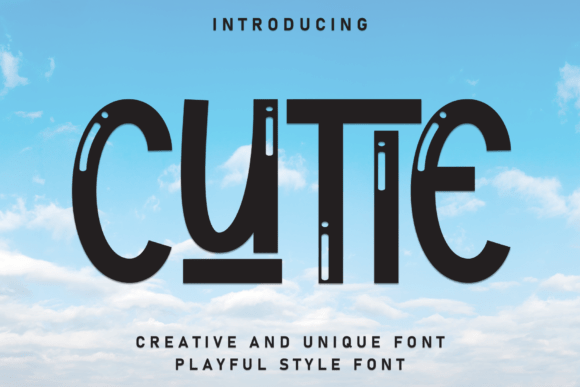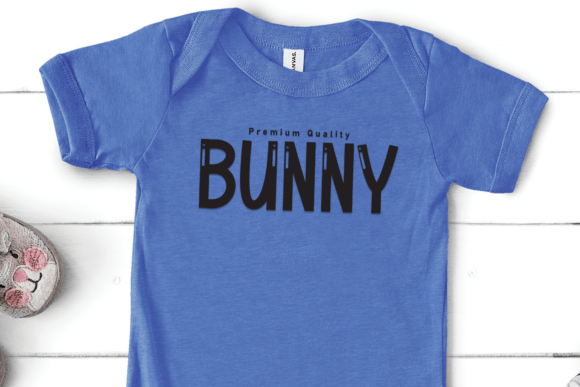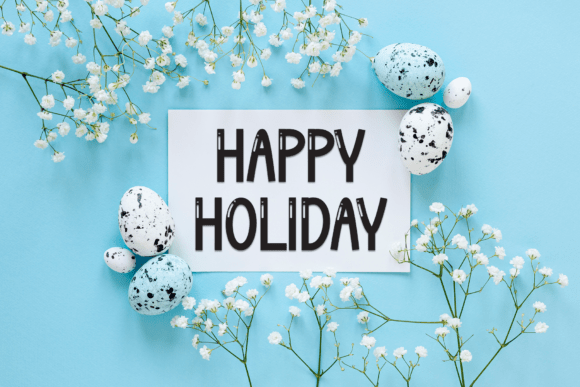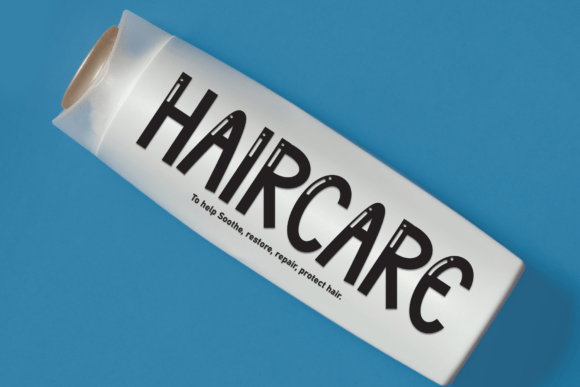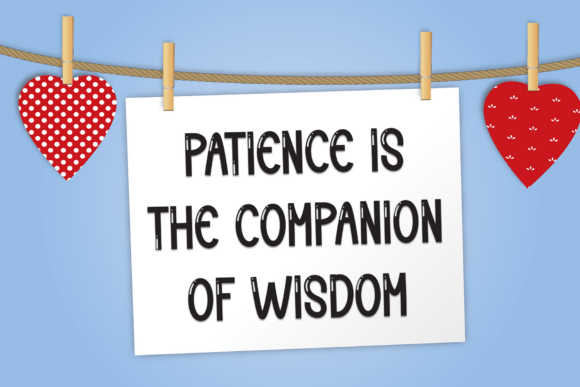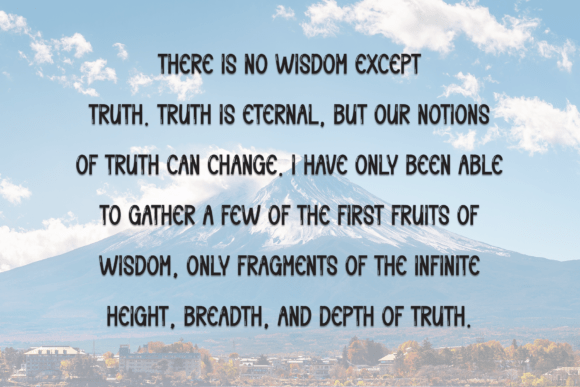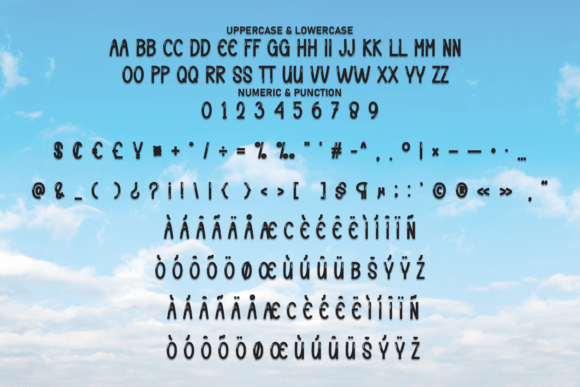
The Perfect Blend of Beauty and Function: Introducing Cutie Font
Have you ever been stuck in a design rut, searching for the perfect font to elevate your project and make it truly special? I know I have. The moment of inspiration strikes when you stumble upon a font that speaks to your creative soul, and for me, that moment arrived with the enchanting Cutie Font.
Designed to bring a touch of warmth and playfulness to your designs, Cutie Font is the perfect choice for custom projects like wedding invitations, greeting cards, and more. Its unique aesthetic and elegant charm make it a valuable asset for designers looking to add a personal touch to their work. Whether you’re a seasoned pro or a budding creative, Cutie Font is sure to inspire and delight, helping you to craft designs that truly leave a lasting impression.
Cutie Font Key Features
- Font Style: Cutie Font is a sans-serif font with a playful and cute appearance.
- Unique Characteristics: The font features rounded edges, smooth lines, and a friendly tone, making it suitable for children’s content, entertainment, and casual designs.
Cutie Font Review
As a designer, I’ve had the chance to work with a wide range of fonts, and Cutie Font is definitely one of the more unique ones out there. Here are my honest thoughts on this font.
- Cutie Font has a fun and playful vibe that’s perfect for designs that need a lighthearted touch.
- The font is highly customizable, with a range of styles and sizes that can be easily adjusted.
- It’s great for creating eye-catching headlines and titles that grab the user’s attention.
- While Cutie Font is fun to look at, it can be a bit overwhelming in large quantities. Be careful not to overuse it!
- The font doesn’t come with as many language support options as some other fonts, which may limit its use in certain projects.
- The font’s design can be a bit too childish for some audiences, which may not be suitable for all types of designs.
Cutie Font is a great choice for designers looking to add some whimsy and personality to their designs. While it may have some limitations, it’s a fun and versatile font that’s sure to bring a smile to the user’s face.
Some common use cases for Cutie Font include:
- Creating playful and whimsical graphics for social media and marketing materials.
- Designing children’s book covers and illustrations.
- Adding a touch of personality to business cards and resumes.